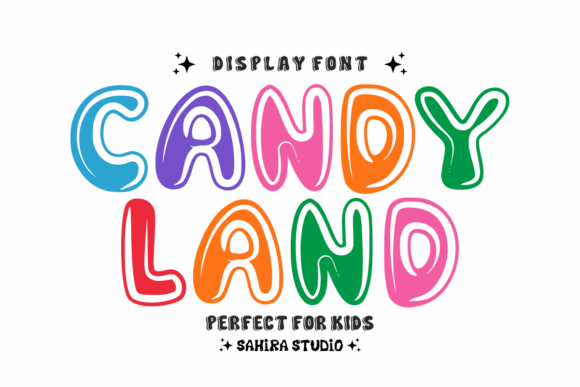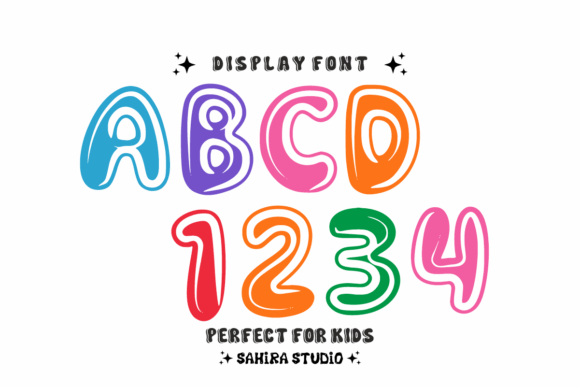
Introducing Bounce Bangke: The Ultimate Fun Font for Creative Projects
Have you ever been in the middle of a design project, and suddenly, you just can’t seem to find the right font? I recall a particularly frustrating moment when I was working on a children’s educational game. My client wanted a font that was not only playful but also engaging and fun. After hours of searching, I stumbled upon Bounce Bangke, and it instantly transformed my design. In this article, I’ll share my experience with this fantastic font, its features, and how you can make the most of it in your creative projects.
A Personal Experience with Bounce Bangke
Bounce Bangke is a bouncy, colorful font that pops with personality! Designed for kids, it features rounded, playful letterforms with bold inner strokes that give it a fun 3D look. The moment I started using it, I knew I had found the perfect fit for my project. Its multi-color vibe makes it feel lively and engaging, perfect for toy packaging, YouTube thumbnails, learning games, birthday invitations, and classroom decor.
- ✨ Playful and Fun: Bounce Bangke screams fun and instantly grabs attention.
- ✅ Versatile: Suitable for a wide range of creative projects, from digital to print.
- 🎉 Multi-color Vibe: Adds a lively and engaging feel to any design.
- 👍 Easy to Read: Despite its playful nature, the font remains clear and readable.
While Bounce Bangke is an amazing font, there are a few things to keep in mind:
- ⚠️ Legibility at Small Sizes: Like many fun, decorative fonts, it may lose legibility at very small sizes.
- 🤔 Overuse: Because it’s so fun and attention-grabbing, be careful not to overuse it in a single design.
Bounce Bangke was created with the intention of bringing joy and playfulness to design. The designer aimed to craft a font that would instantly convey a sense of fun and energy. Inspired by children’s toys and colorful playgrounds, Bounce Bangke combines whimsy with readability, making it perfect for a variety of creative projects.
| Author | Sahira Studio |
Q: What is Bounce Bangke best used for?
A: Bounce Bangke is ideal for projects that require a fun and playful touch, such as children’s toy packaging, YouTube thumbnails, educational games, birthday invitations, and classroom decor.
Q: Is Bounce Bangke easy to read?
A: Yes, despite its playful design, Bounce Bangke is clear and readable, making it suitable for both digital and print projects.